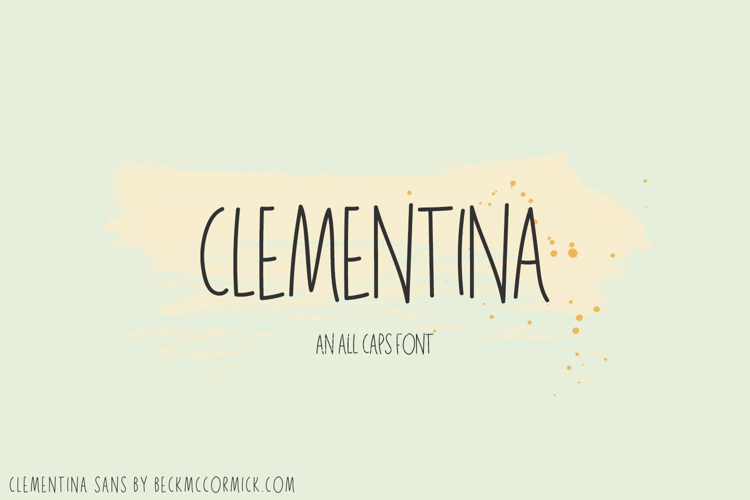
Clementina Sans Font
Introducing Clementina, an all-caps handwritten sans font. Clementina is tall & skinny, with a playful, bright personality.
Clementina is best for:
- crafty projects using your Cricut or Silhouette machine, perfect for creating SVGs or your own vinyl labels reminiscent of the Rae Dunn line of kitchen decor!
- website design + website accents - think travel blogs, fashion blogs, & more
Clementina includes:
- full uppercase characters - lowercase character spots are programmed with the caps version for your convenience.